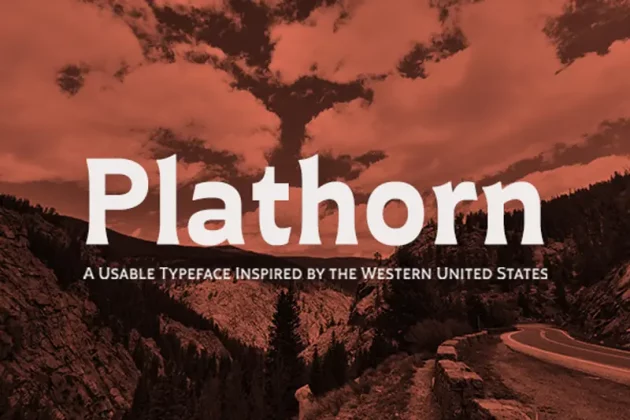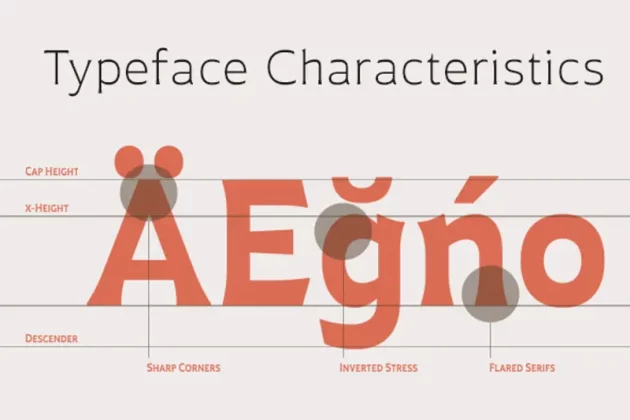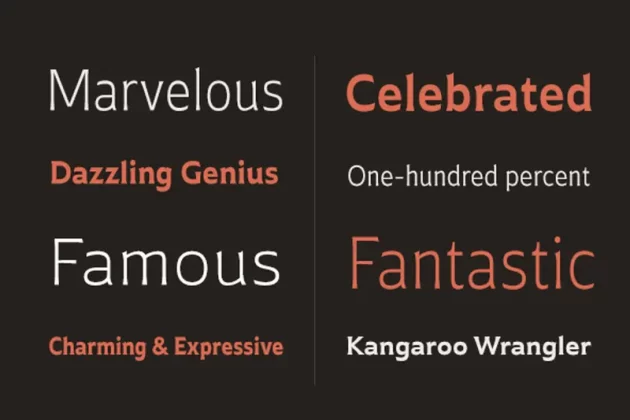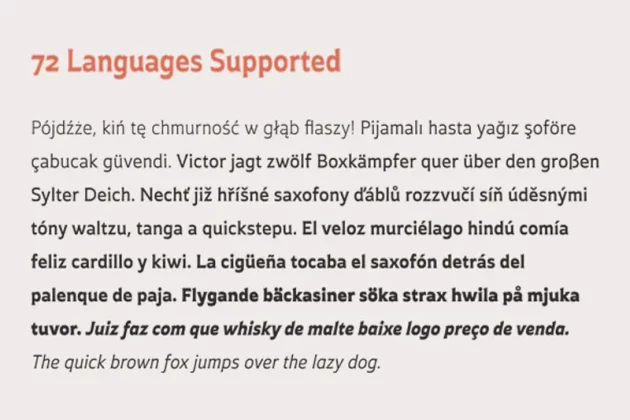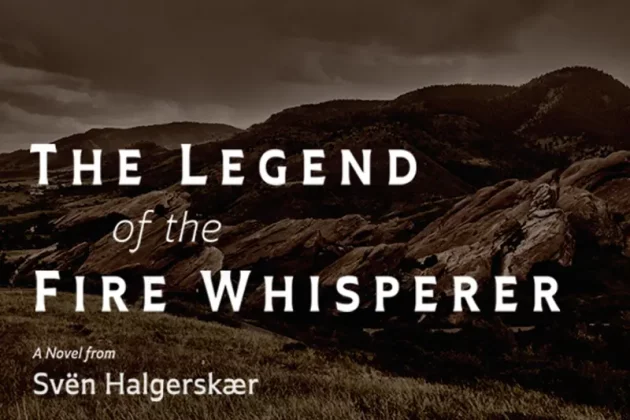
Vast and untamed, the American West once stretched as free and wild as imagination itself. Still beautiful, the Wild West of long ago and the new West of today is now to be found in insigne’s new face, Plathorn.
That’s right, folks. When the West called, Jeremy Dooley reached up like Pecos Bill, grabbed it by the reins and pulled it in, then using its wide, roaming elements to design this functional font that still has an unbroken spirit burning deep inside. This down right, no-nonsense, orthodox face leaves off any of that extra fancy stuff that doesn’t belong on a ride.
Plathorn comes with a family of cowhands as wide as the Rockies, bringing specifically tailored condensed and extended sub-families along with it too. By design, it’s not very obtrusive like its unorthodox reversed tension brethren. Leave those for the next font rodeo. This mount features barely a hint of a serif that hearkens back a hundred years or so to sign painters and package lettering artists of early twentieth century. They’re sure to put the sharpness, gumption and grit you need into your copy.
So grab a tall glass of Plathorn and drink in the deep taste of America’s big country. Put it in your next magazine. Put it in your brand. This typeface’s offbeat appeal is bound to bring a bit of wild U.S. to your free-spirited work.